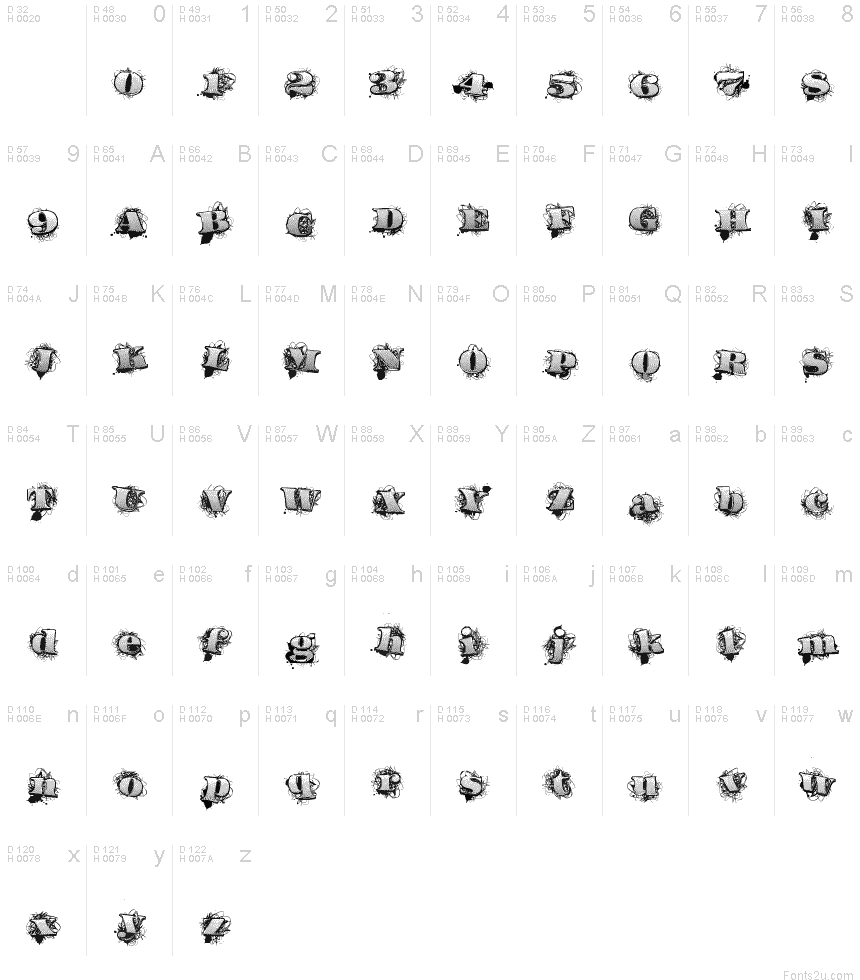
Urban Labels by Xerographer Fonts is a free distorted display font with chunky slab-serif lettering and a rough street-poster finish. Its dotted interiors, heavy double contours, and tangled scratch marks make the letters look printed, scrawled over, and pasted into an urban collage. Ink-like splashes deepen the handmade messiness.
Street art and underground music are the clearest references, making it well suited to gig posters and album artwork. It can also shape skate merchandise or youth event graphics with an intentionally unruly, photocopied edge. The scribbles and splatters can merge with graffiti drawings, torn-paper textures, and DIY illustration instead of reading as separate decoration.